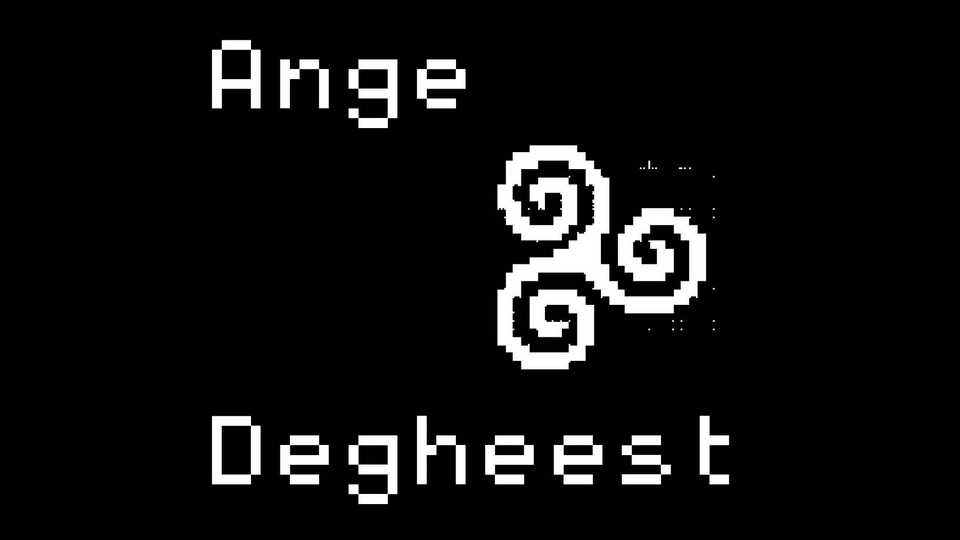
Download FT88 font, a a pixel font family, a revival of the typefaces designed by Ange Degheest. It includes a bold, an italic and an expanded and some original styles: a serif, two script faces, and a blackletter font.